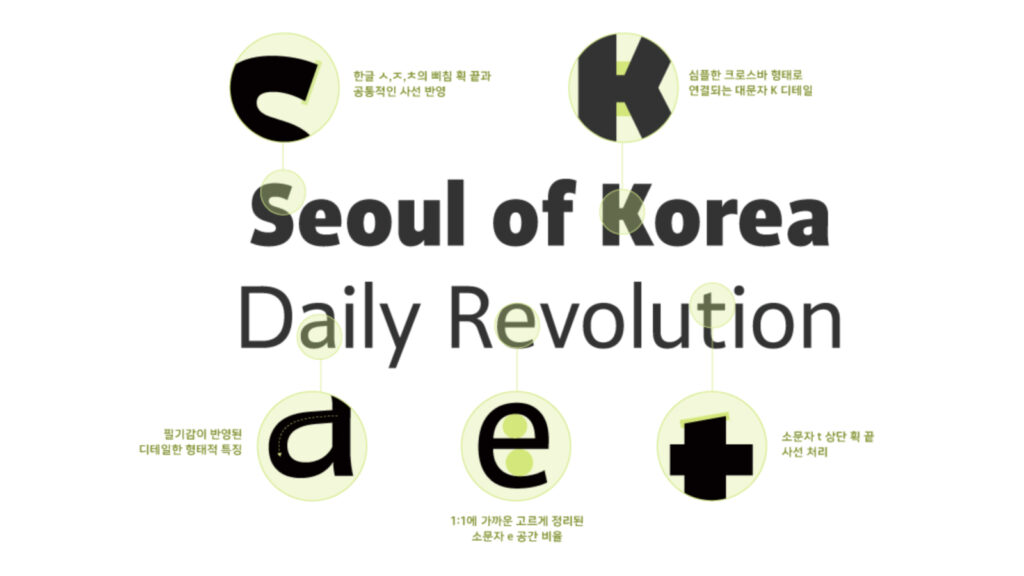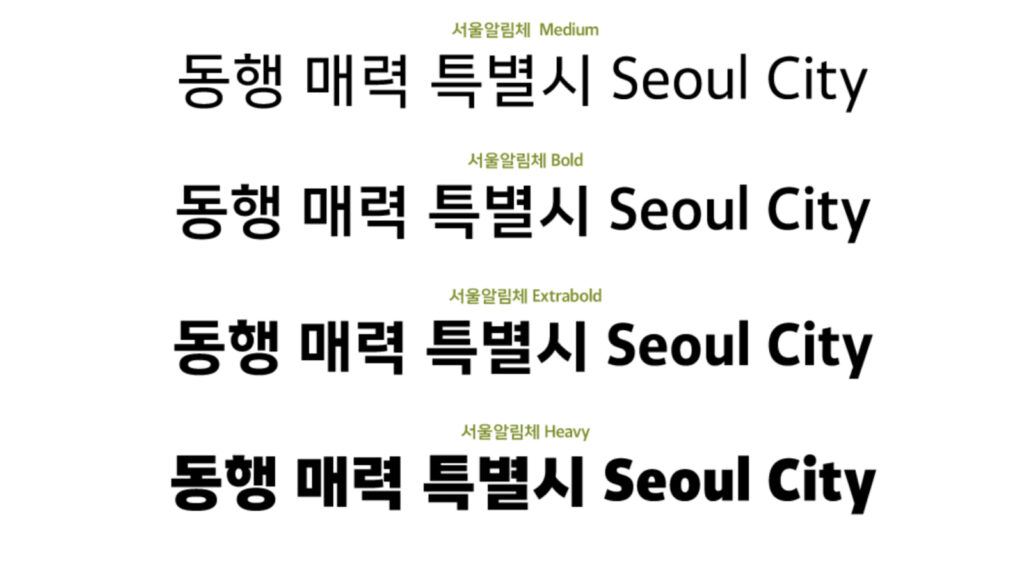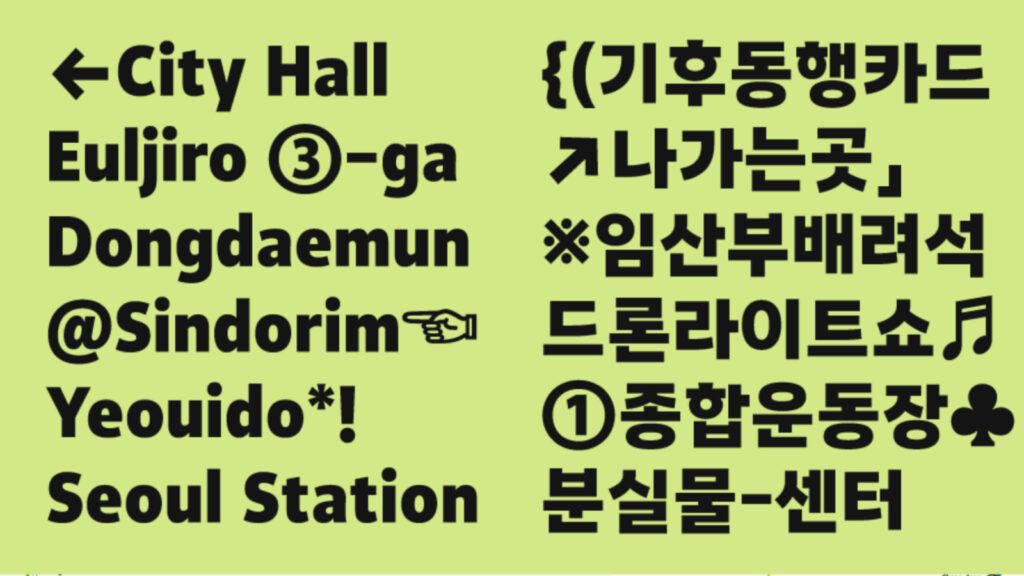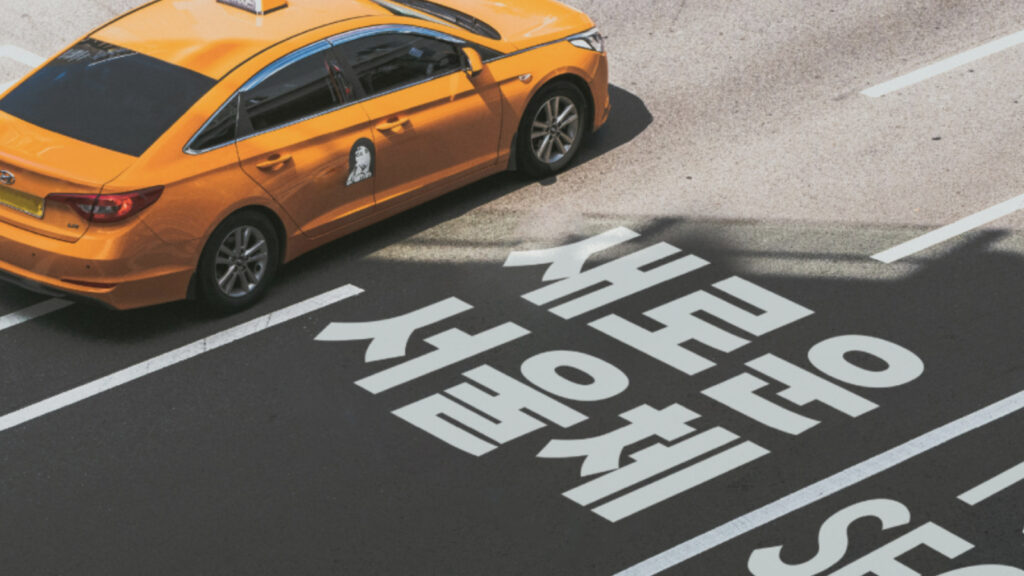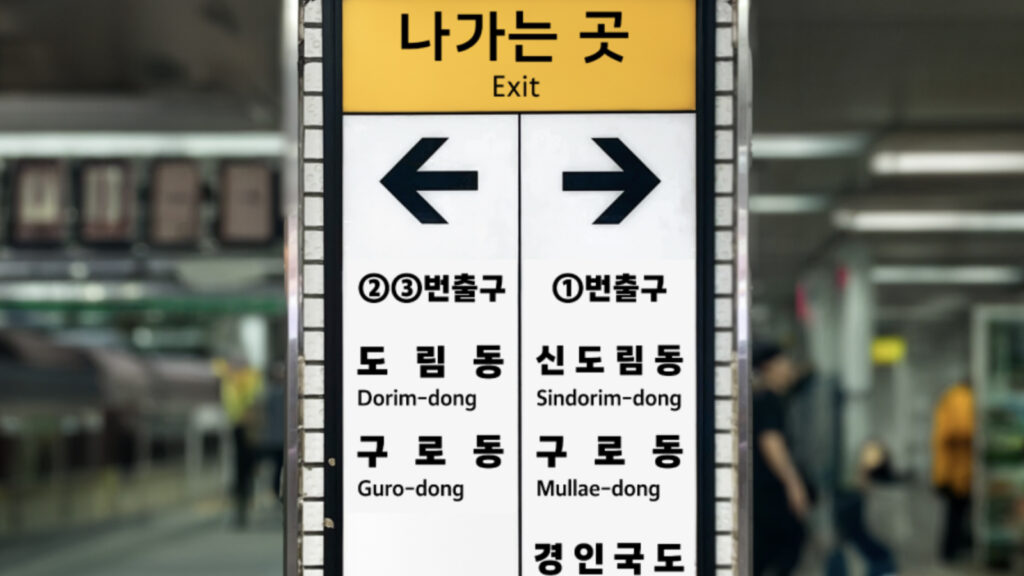
Seoul Notification, a new Seoul font that appeared after 18 years
Seoul Notification Font is a public font created through collaboration between Seoul City and T-Lab.
This is the font that Seoul City will apply in April 2025 when it completely reorganizes its subway map for the first time in 40 years since the opening of Line 1 in 1974. It maintains a stable letter form with the same width and square structure, and provides an easy-to-read composition with no unnecessary characters. It also expresses modern humanism through natural handwriting shapes and delicate curved strokes. It supports rapid information delivery by forming clear identification and positive images through fan-shaped caps and curved horizontal strokes.
Seoul Notification Font consists of 4 types (Medium, Bold, Extra Bold, Heavy) and anyone can download and use it for free. However, selling, transferring for a fee, or unauthorized distribution is not permitted.
• Client. Seoul Metropolitan Government⠀
• Creative Director. Park Yoon-jung⠀
• Type Designer. Hansol Park, Edward July, Jinhyeon Park